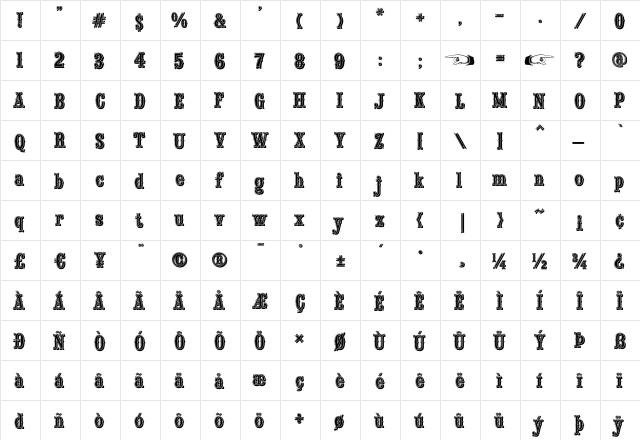
Saloon Girl Inline Regular
Design Context for Saloon Girl Inline Typeface
Saloon Girl Inline taps into classic Western woodtype traditions — bold, characterful, and impossible to ignore.
A natural fit for craft spirits, ranch branding, rodeo events, and Americana-inspired design work.
Font Pairing: Combine Saloon Girl Inline with a simple slab or neutral sans — period-accurate companions reinforce the vintage feel without competing for attention.
Pro Tip: Use Saloon Girl Inline for short, impactful bursts of text — it shines in poster headlines and product names rather than extended copy.